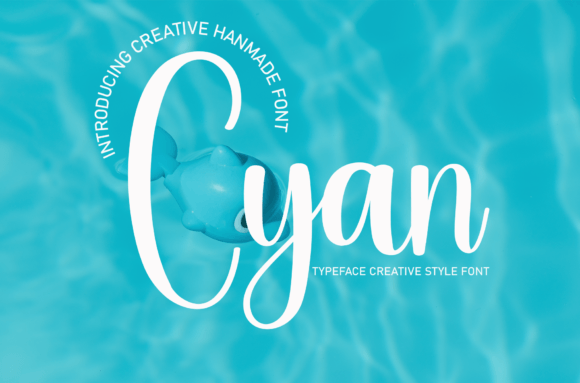
Download Cyan Font for free! Created by william jhordy and published by Julian Coffman, this script font family is perfect for adding a unique touch to your designs.